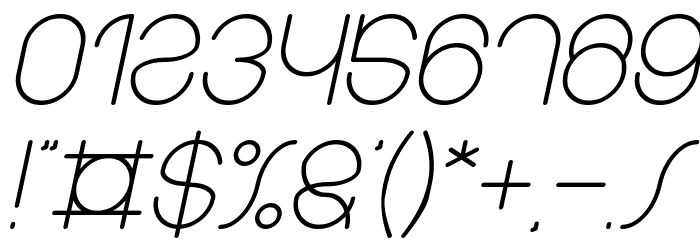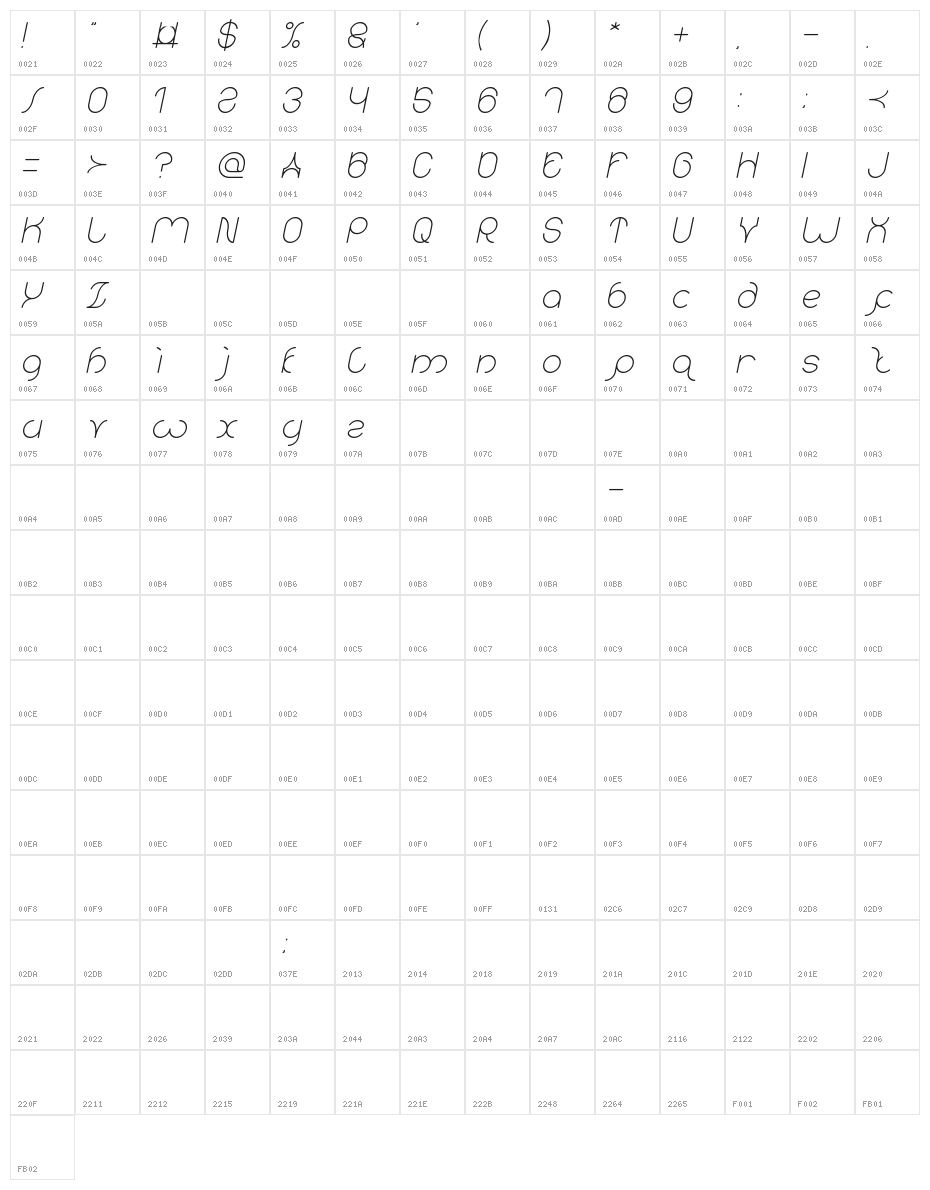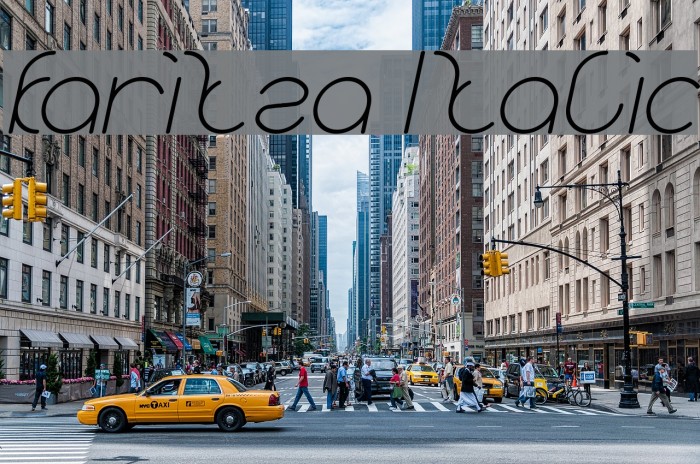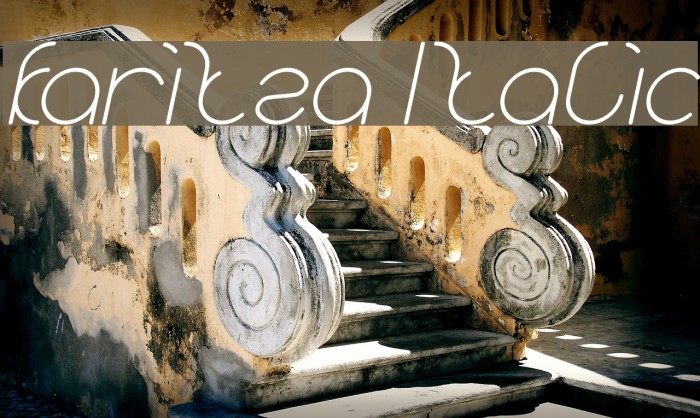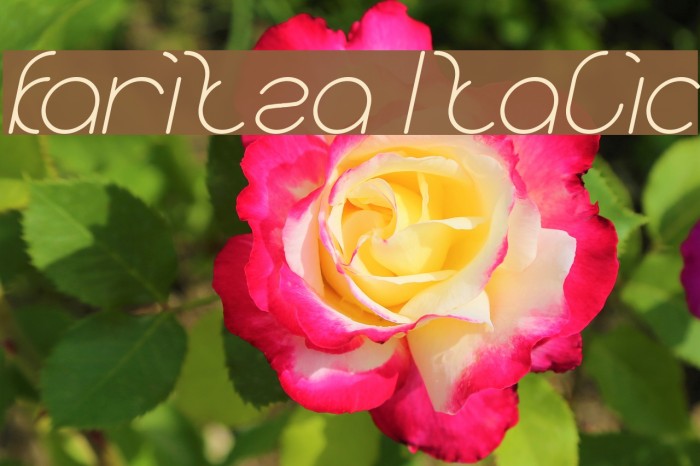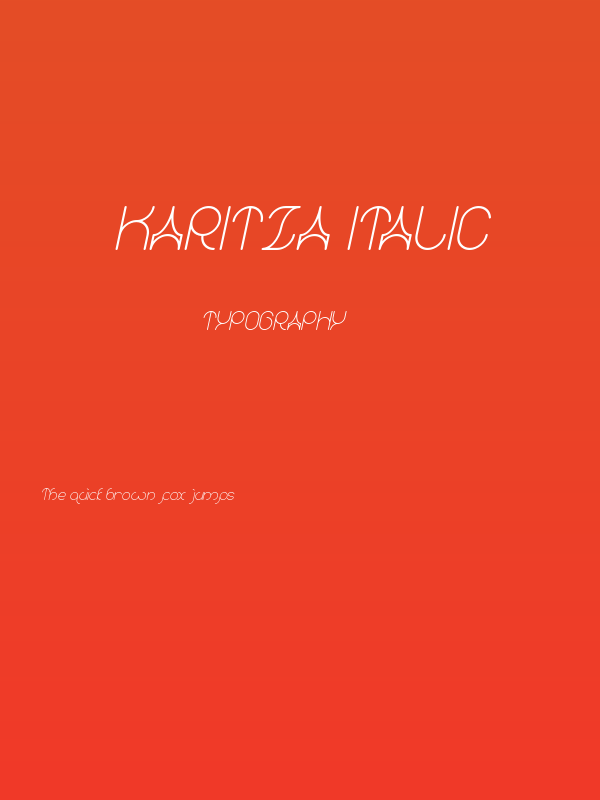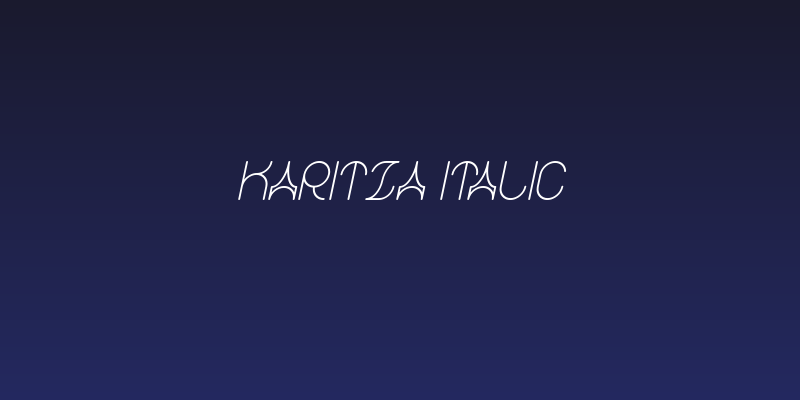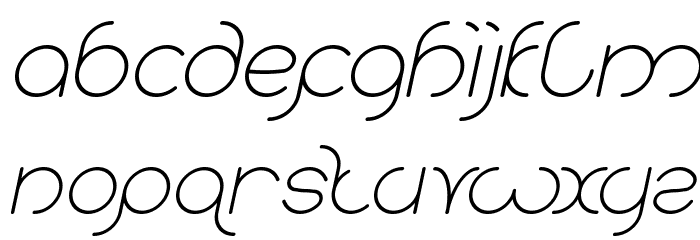
karitza Italic Font
karitza Italic Description
This font features a sleek, flowing design with a modern italic style. The characters are elegantly curved, giving a sense of motion and fluidity. Uppercase letters maintain a consistent height, while lowercase letters have a slight slant, enhancing the italic effect. The numerals are clear and distinct, with a uniform stroke width that complements the overall design. Special characters are seamlessly integrated, maintaining the font's cohesive look. The font's clean lines and smooth curves make it versatile for various applications.
Proposed ProjectsIdeal for branding, fashion magazines, elegant invitations, and modern logos.